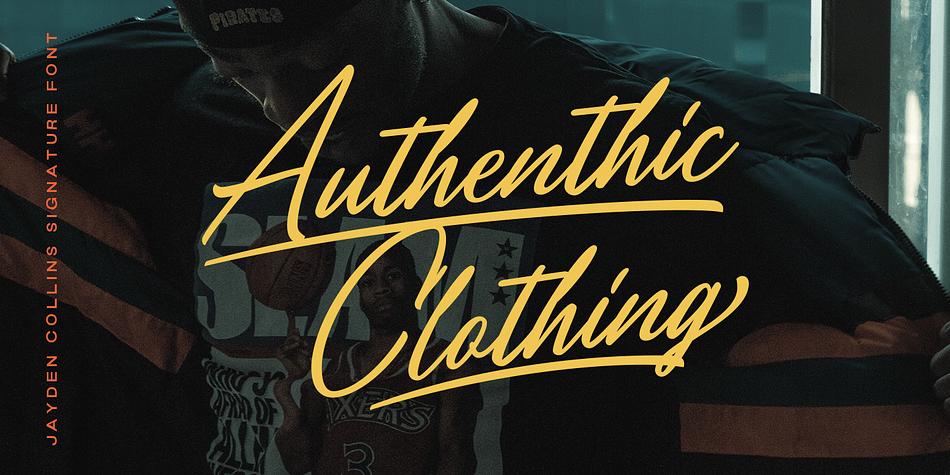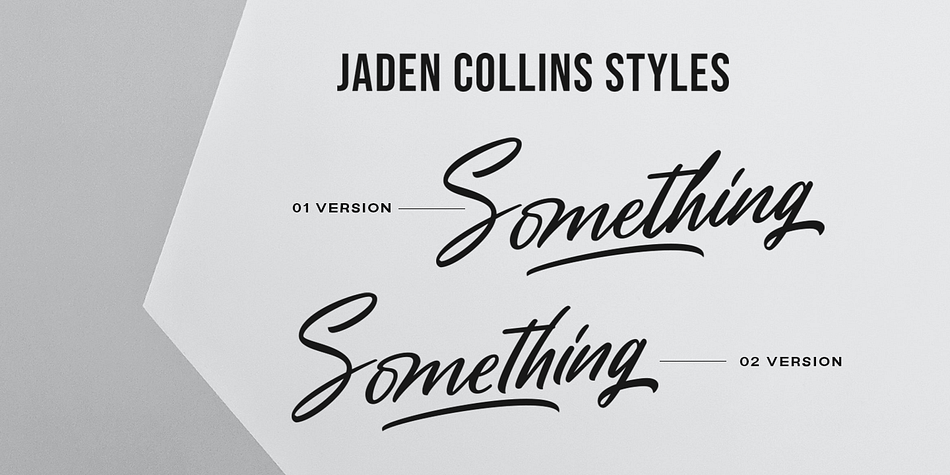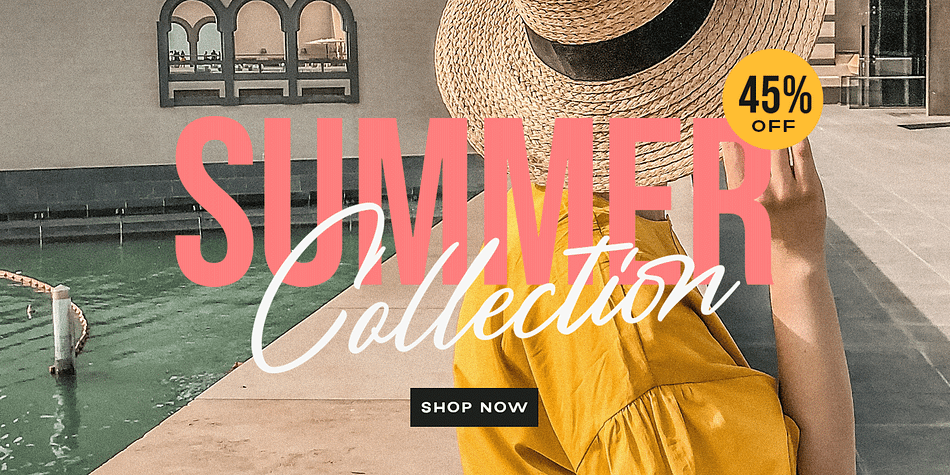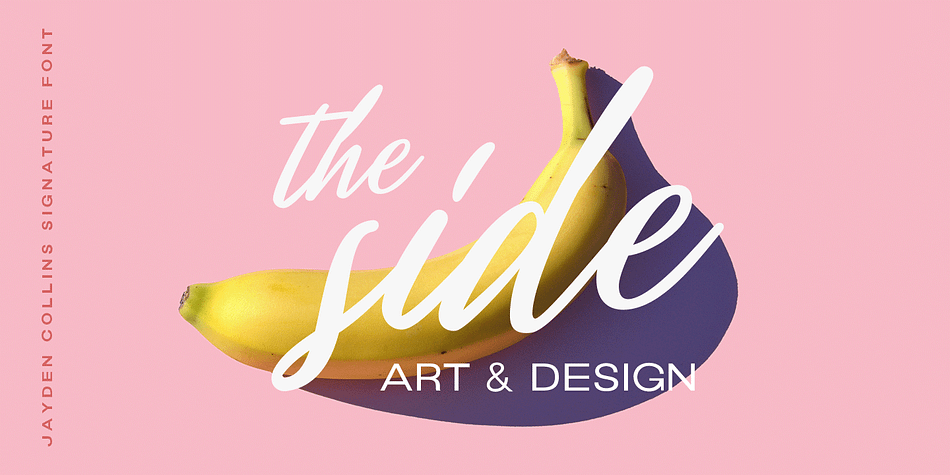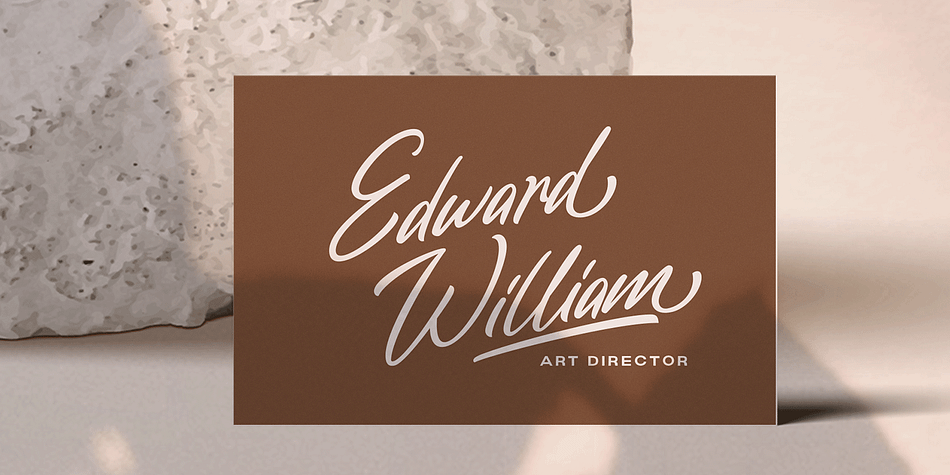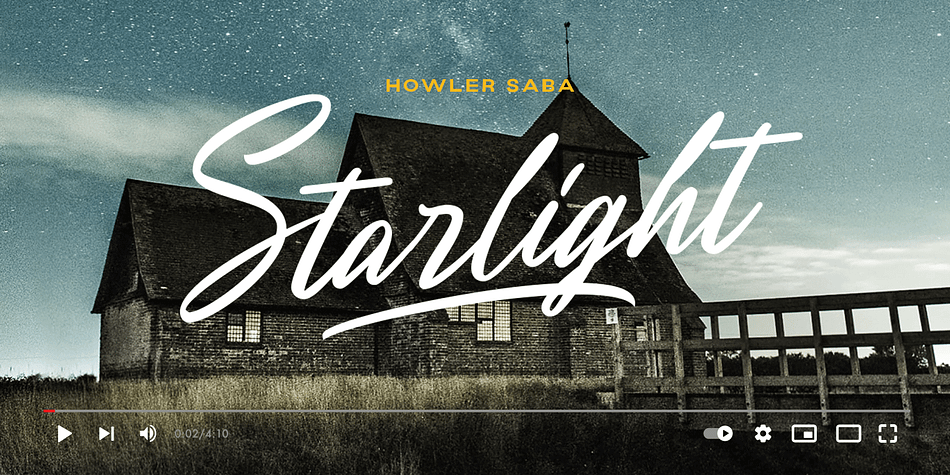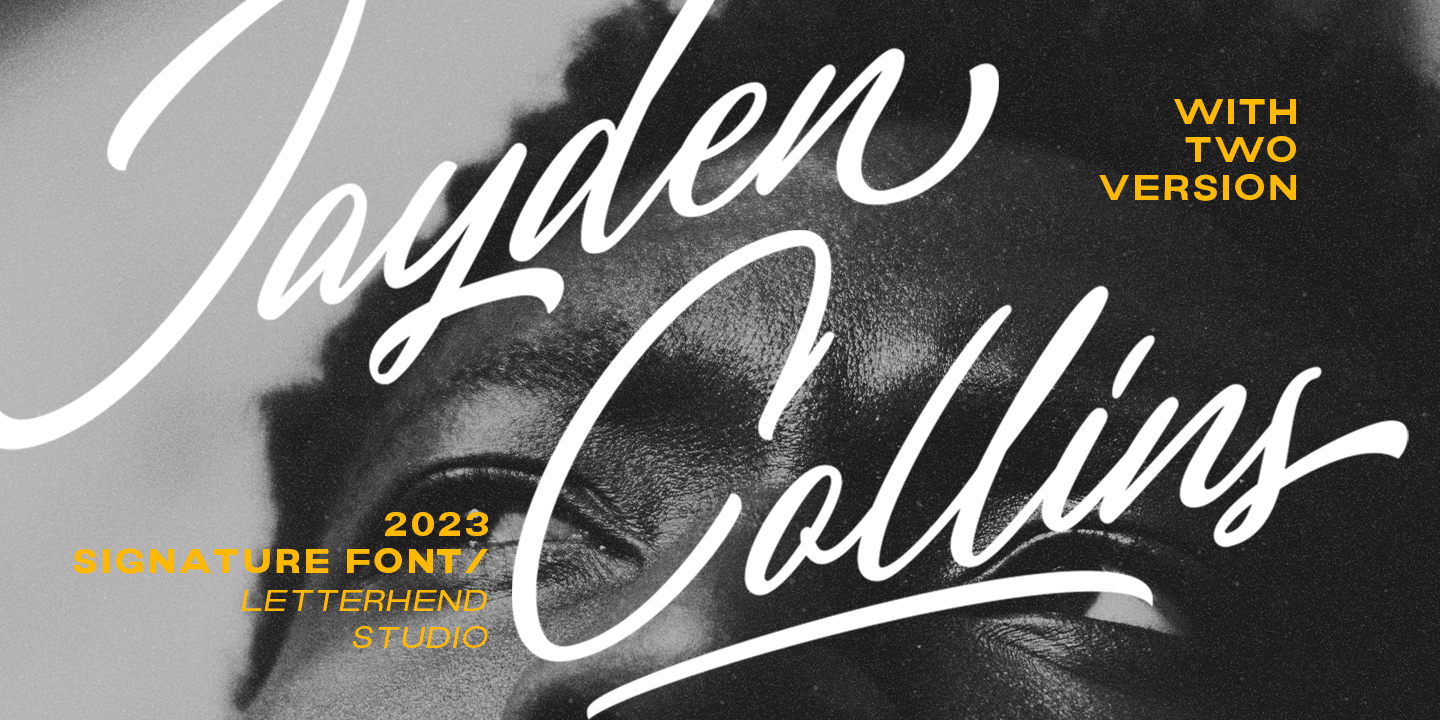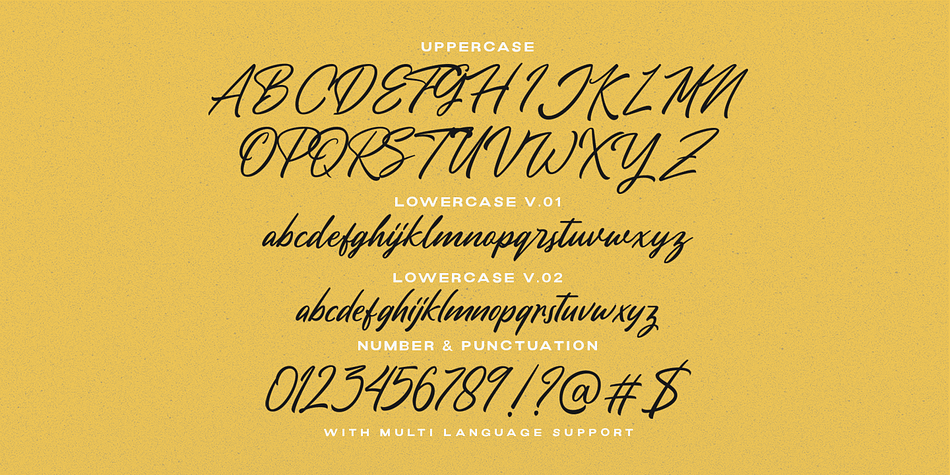
Jayden Collins
Designed by Hendry Juanda, Jayden Collins is a hand drawn and modern calligraphy font family. This typeface has two styles and was published by Letterhend Studio.
Jayden Collins is the signature font that perfectly captures the beauty of a handwritten signature. With its natural feel and casual, chic style, it’s the perfect choice for branding, logos, and the other various formal forms such as invitations, labels, logos, magazines, books, greeting / wedding cards, packaging, fashion, make up, stationery, novels, labels or any type of advertising purpose where a personal touch is needed. And with its two different style versions, you can create a variety of unique and eye-catching designs.
- Alternates & Ligatures